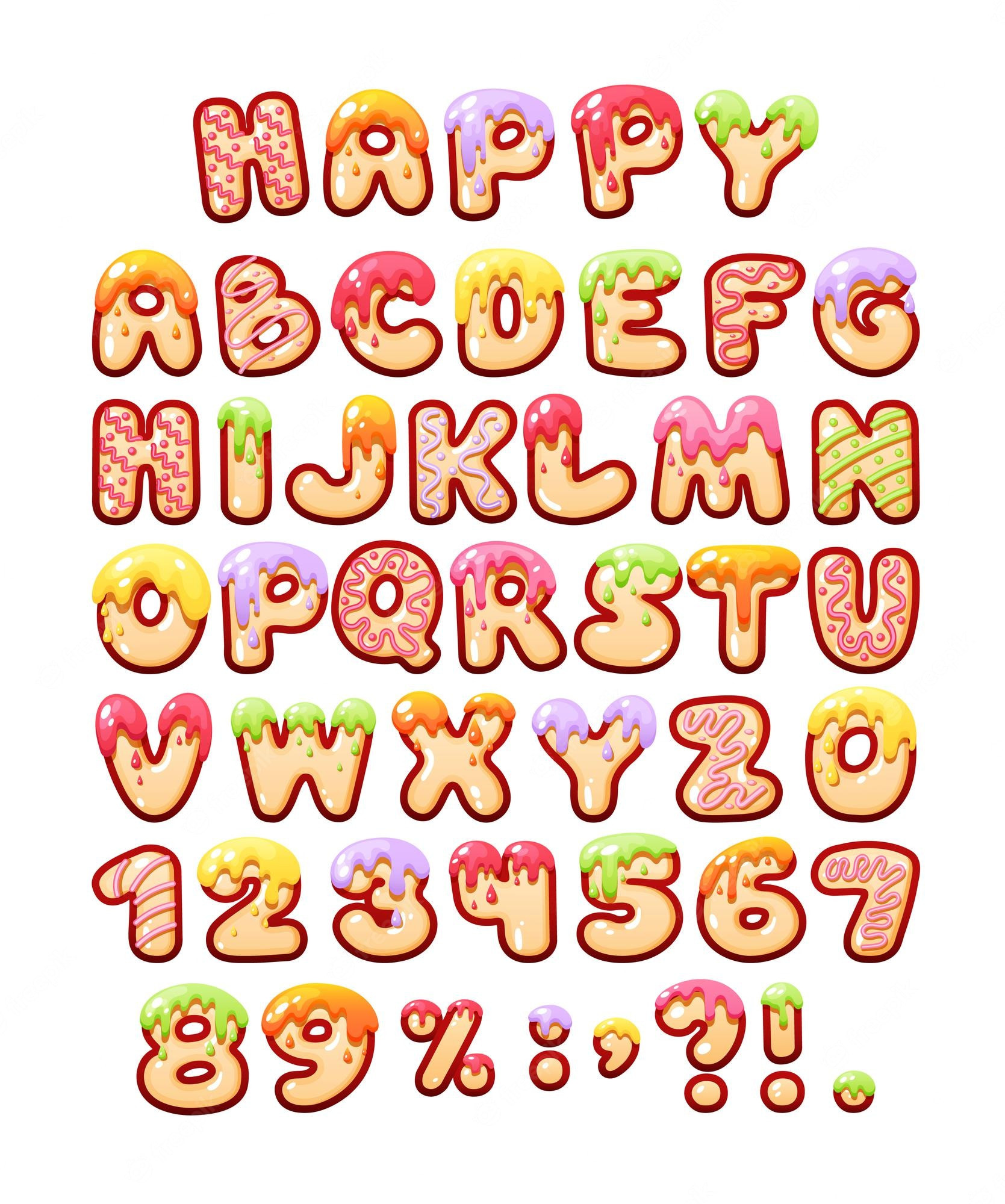
Cute Bubble Letter Font: Adding Fun And Flair To Your Designs
cute bubble letter font: The Perfect Choice for Playful Designs
Bubble letter fonts have been popular for years, and with good reason. They’re fun, playful, and perfect for a variety of designs. But if you’re looking for something even more adorable, then you might want to check out cute bubble letter fonts.
Cute bubble letter fonts are characterized by their whimsical and bubbly style, making them the perfect choice for designs that require a touch of fun and playfulness. They’re often used in children’s book illustrations, birthday cards, and other designs meant to evoke a joyful and lighthearted mood.
One of the most popular cute bubble letter fonts is KG Miss Kindergarten by Kimberly Geswein. It features bubbly letters with a hand-drawn style that looks like it was written by a child. It’s perfect for creating designs that appeal to both kids and adults.
Another cute bubble letter font that’s worth checking out is Bubblegum Sans by Sudtipos. It features rounded letters with a soft and playful look, perfect for designs that require a touch of whimsy.
Cute bubble letter fonts are also versatile enough to be used in a variety of design projects. They work well in logos, posters, social media graphics, and even on websites. They can also be combined with other fonts to create a unique and eye-catching design.
When using cute bubble letter fonts, it’s important to keep in mind that they can be a bit overwhelming if used too much. Use them sparingly, and pair them with simpler fonts to balance out the design.
In conclusion, if you’re looking for a font that’s playful, fun, and adorable, then a cute bubble letter font might just be what you need. With their bubbly and whimsical style, they’re the perfect choice for designs that require a touch of joy and lightheartedness. So go ahead and give one a try – your designs will thank you for it!